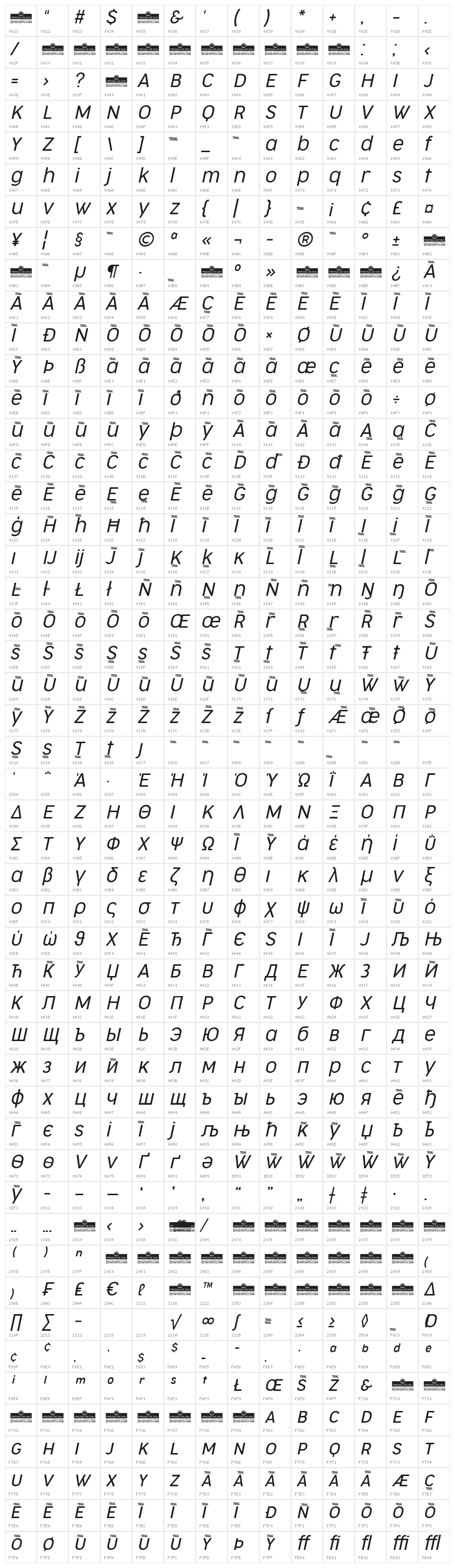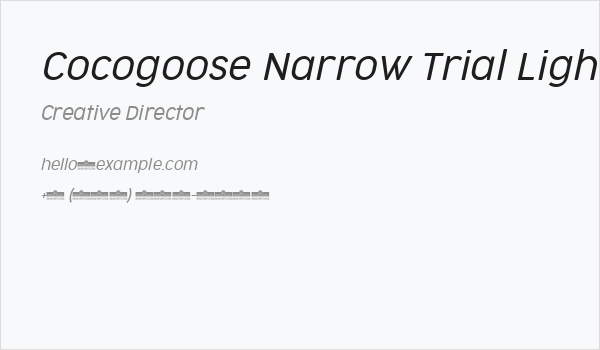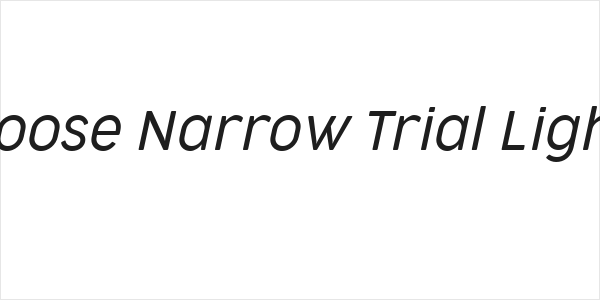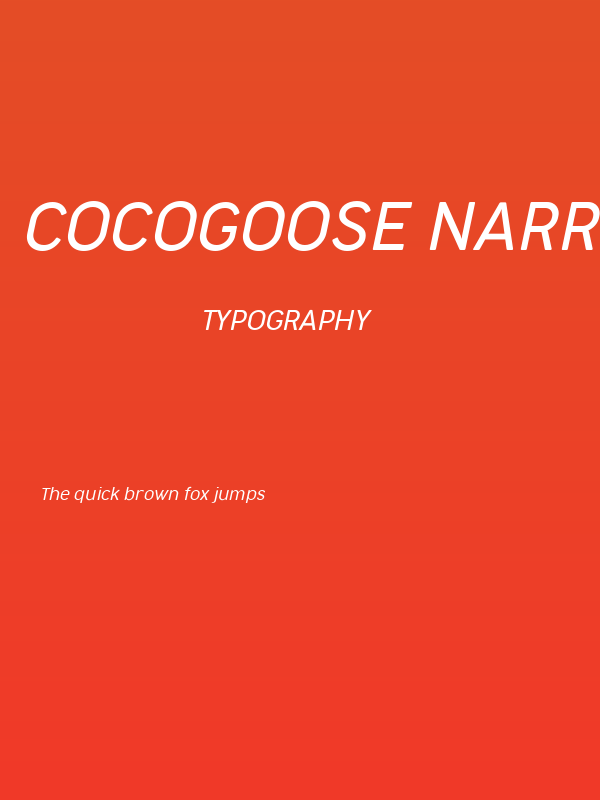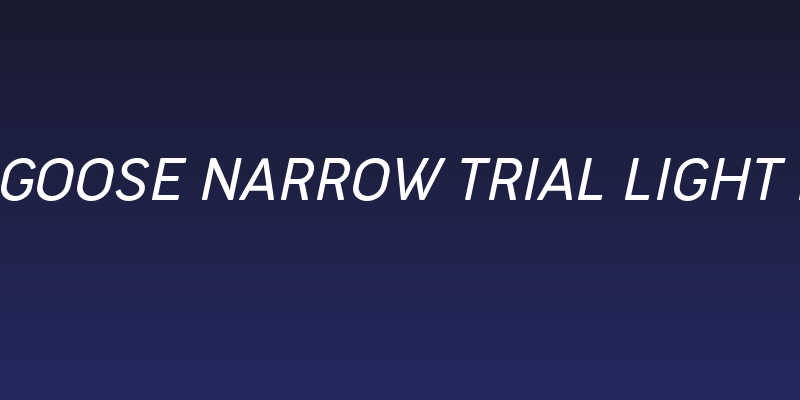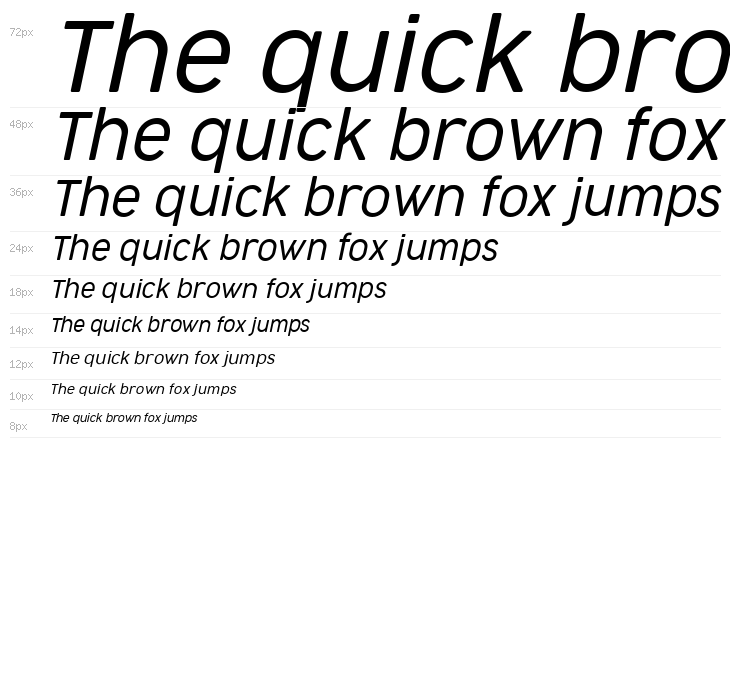
Cocogoose Narrow Trial Light Italic Font
Cocogoose Narrow Trial Light Italic Description
This font features a sleek and modern design with a narrow structure, giving it a contemporary and stylish appearance. The characters are slightly italicized, adding a dynamic and forward-leaning feel. The light weight of the strokes contributes to an elegant and airy look, making it suitable for projects that require a refined touch. The font maintains a consistent and clean line throughout, with smooth curves and sharp edges that enhance its readability. The spacing between characters is balanced, ensuring clarity and legibility even at smaller sizes. This font is versatile, fitting well in both digital and print media, and can be used to convey a sense of sophistication and modernity.